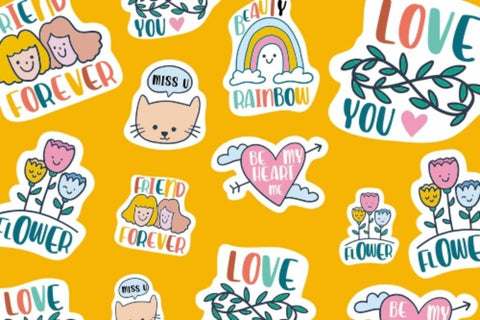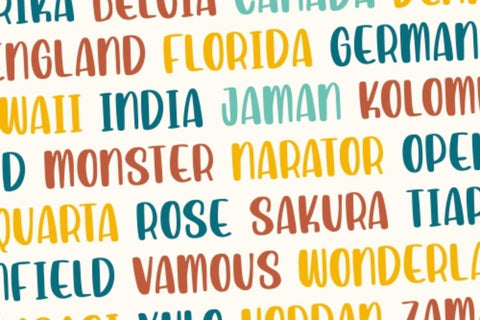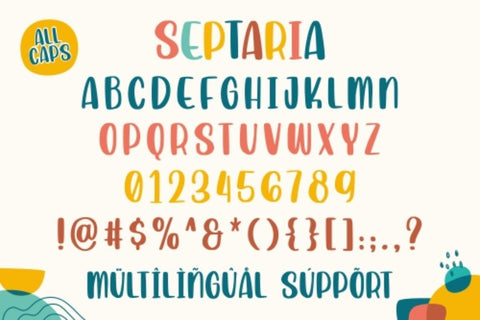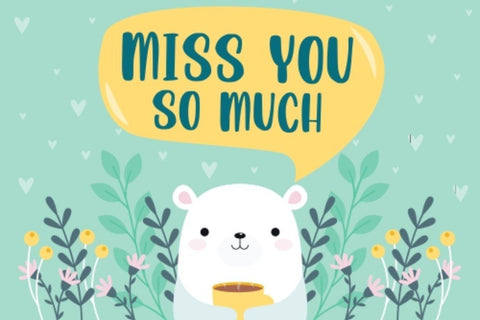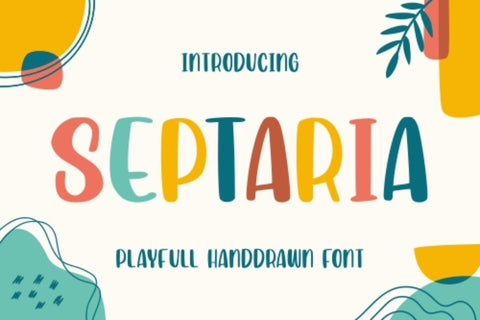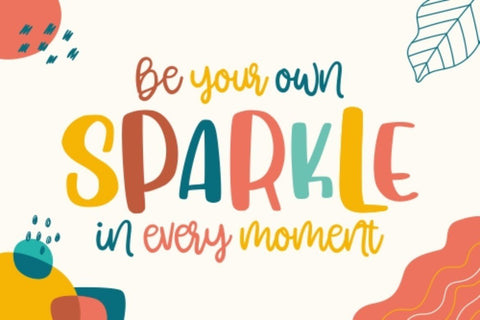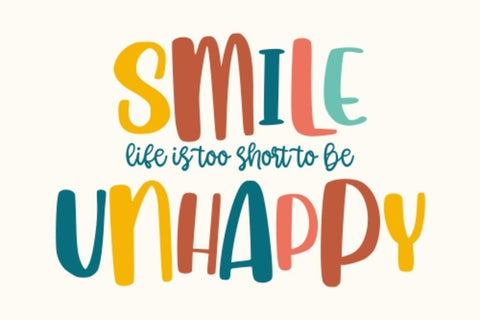
Septaria | Playfull Handdrawn Font
Introducing Septaria | Playfull Handdrawn Font
Septaria combines attractive curves with a fresh urban edge; delivering a stylish script which is guaranteed to add an eye-catching appeal to your logo designs, brand imagery, quotes, product packaging, merchandise & social media posts
- All Caps letters -Numbers & Punctuation
- Support for 21 languages: Afrikaans Albanian Croatian Czech Danish Dutch English Estonian Finnish French German Hungarian Italian Norwegian Polish Portuguese Slovak Slovenian Spanisch Swedish Zulu